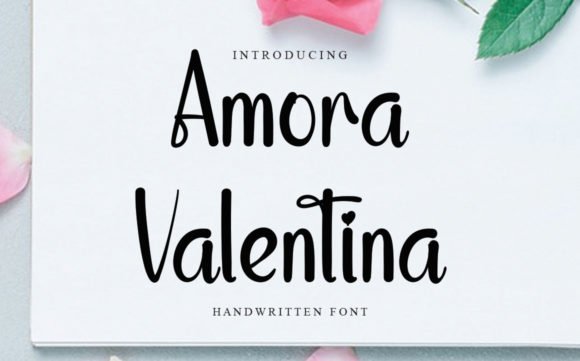
Introduction to Amora Valentina Font
Amora Valentina is a sweet and romantic handwritten font featuring a delicate flow.
Use it for wall displays, wedding invitations, social media post logos, and any project that requires impressive typography .
Key Features of Amora Valentina Font
Why Choose Amora Valentina Font?
Amora Valentina Font offers exceptional quality and versatility, making it a valuable addition to your design toolkit. Whether you’re creating for personal projects or commercial use, Amora Valentina Font delivers professional results.